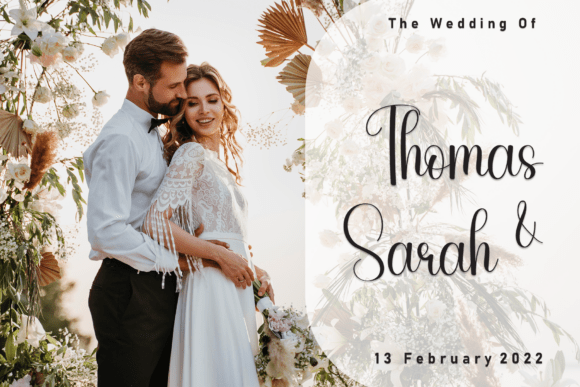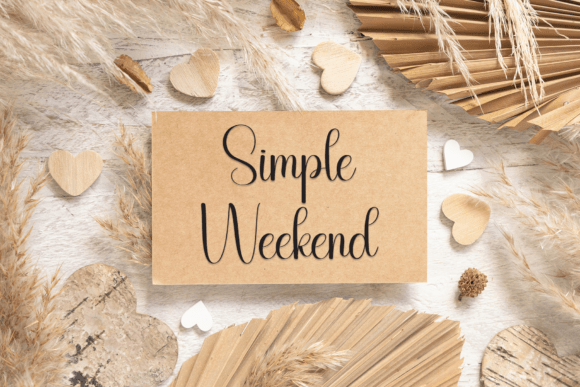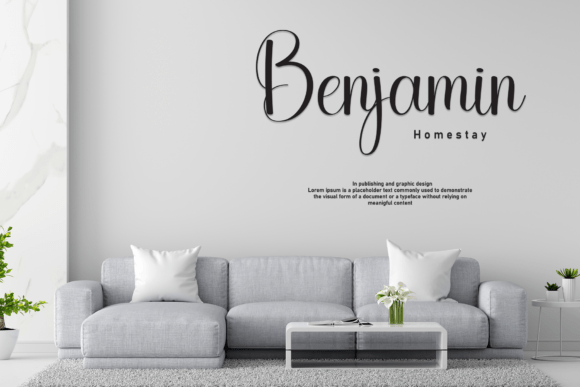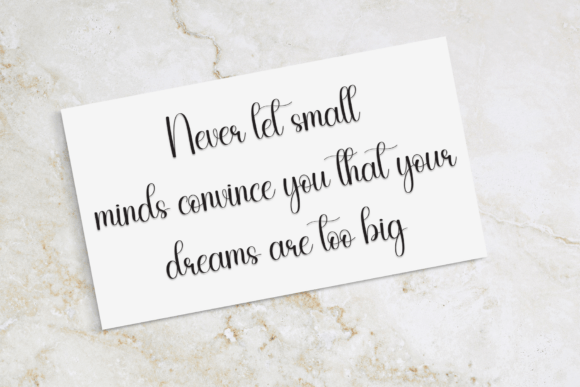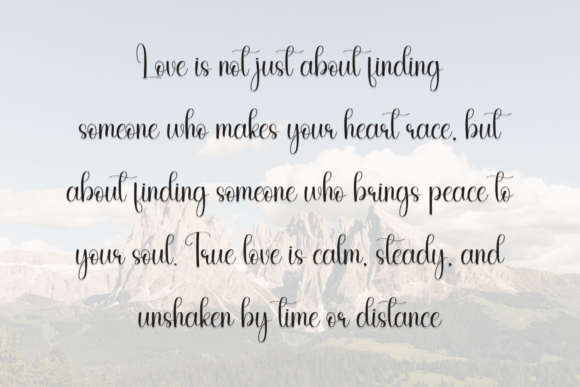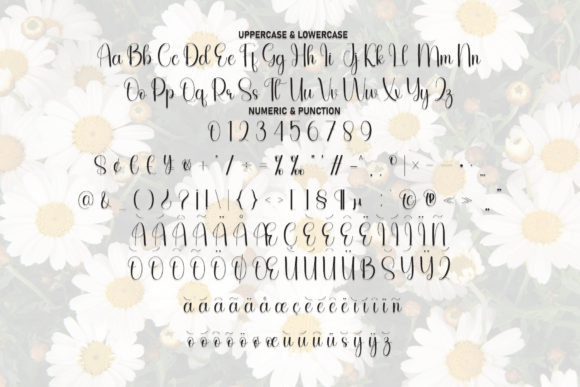
Daisy Font: The Sweet and Friendly Handwritten Display Font
Are you looking for a font that can add a touch of joy and warmth to your designs? Look no further than the Daisy Font, a sweet and friendly handwritten display font that is sure to enchant your audience. With its vibrant merriment and refined grace, this font is perfect for wedding invites, greeting cards, and any design that seeks a dash of gaiety.
The Enchanting Charisma of Daisy Font
The Daisy Font is more than just a font – it’s a soul etched in ink. Its delightful hues of allure and joy make it a superb blend of vibrant merriment and refined grace. This font has the power to transform your designs, adding an extraordinary touch that will leave a lasting impression on your audience. Whether you’re a designer, crafter, or DIY enthusiast, the Daisy Font is sure to delight.
A Font that Transcends the Basic Essence
The Daisy Font transcends the basic essence of a font, representing a soul etched in ink. It’s not just a collection of letters and symbols – it’s a way to add warmth and cheer to your designs. With its carefully crafted typography, this font injects joy into each thoughtfully molded letter, making it a genuine embodiment of the strength and quality found in carefully crafted typography.
Perfect for Wedding Invites and Greeting Cards
The Daisy Font is perfect for wedding invites, greeting cards, and any design that seeks a dash of gaiety. Its sweet and friendly tone makes it ideal for special occasions, adding a touch of warmth and personality to your designs. Imagine sending out wedding invites that are not only beautiful but also reflect the joy and love of the occasion. With the Daisy Font, you can make that happen.
Adding an Aura of Warmth and Cheer
The Daisy Font has the power to enhance your designs with an aura of warmth and cheer. Its vibrant colors and playful tone make it perfect for designs that need a dash of personality. Whether you’re creating a logo, brochure, or social media graphic, this font is sure to add a touch of joy and whimsy. With the Daisy Font, you can create designs that are not only beautiful but also engaging and memorable.
The Strength and Quality of Carefully Crafted Typography
The Daisy Font is a genuine embodiment of the strength and quality found in carefully crafted typography. Each letter is thoughtfully molded to create a font that is not only beautiful but also legible and easy to read. With its carefully crafted typography, this font is perfect for designers and crafters who value attention to detail and high-quality design.
Tips for Using the Daisy Font
Here are some tips for using the Daisy Font in your designs:
- Use it for wedding invites, greeting cards, and special occasions to add a touch of joy and warmth.
- Experiment with different colors and textures to add depth and personality to your designs.
- Pair it with other fonts to create a unique and eye-catching design.
- Use it for logos, brochures, and social media graphics to add a touch of whimsy and personality.
The Daisy Font is a sweet and friendly handwritten display font that is sure to enchant your audience. With its vibrant merriment and refined grace, this font is perfect for wedding invites, greeting cards, and any design that seeks a dash of gaiety. Its carefully crafted typography and delightful hues of allure and joy make it a superb blend of style and personality. Whether you’re a designer, crafter, or DIY enthusiast, the Daisy Font is sure to delight.
Get Ready to Fall in Love with the Daisy Font